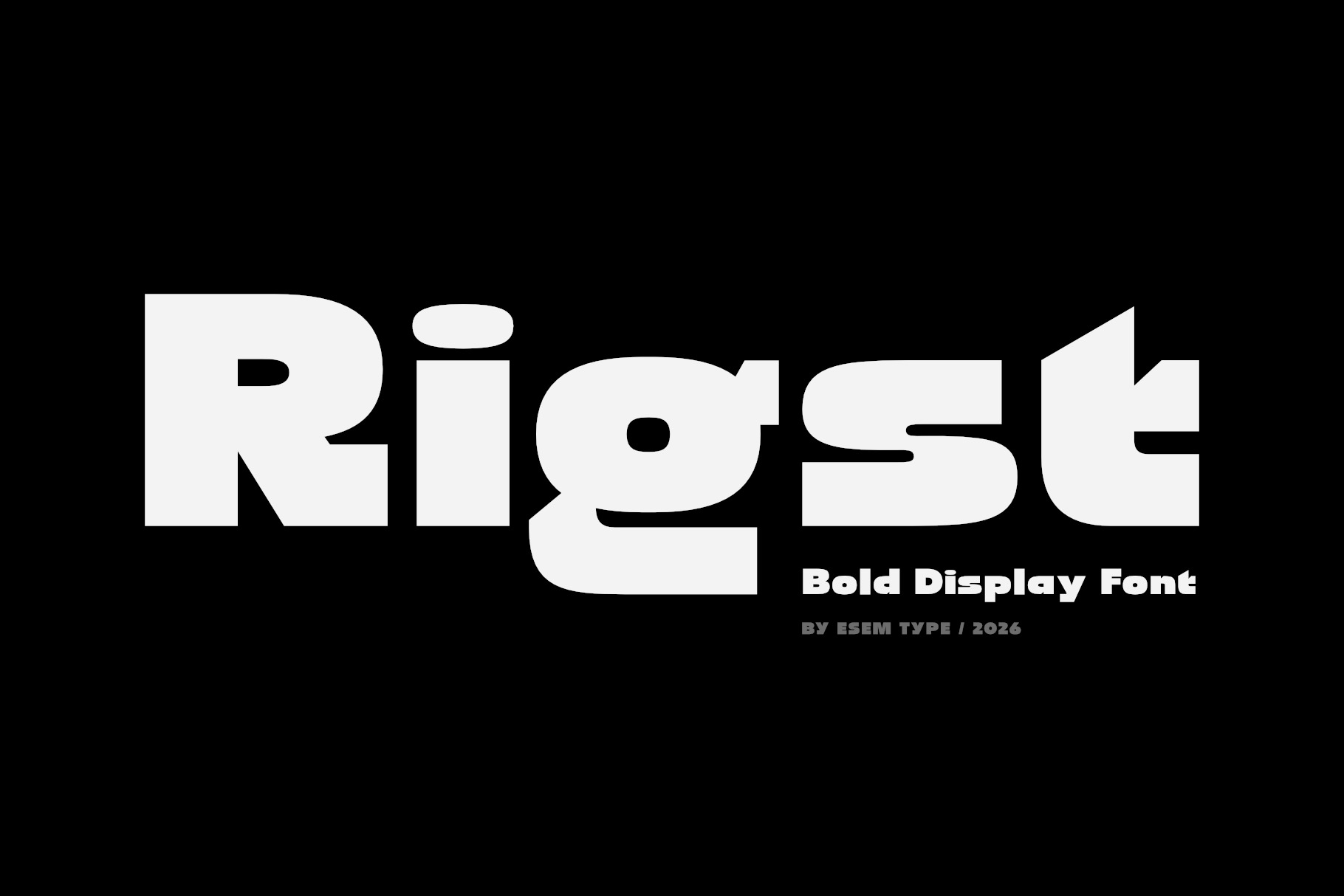
Rigst | Bold display font
RIGST is a bold display font designed to make a strong visual impact. Featuring 174 glyphs, its heavy geometric forms, sharp details, and distinctive letter shapes create a powerful and modern look.
Perfect for posters, branding, headlines, logos, packaging, sports graphics, social media, album covers, and other projects that need a confident and eye-catching typographic style.
RIGST is made for big statements and strong visual identities.